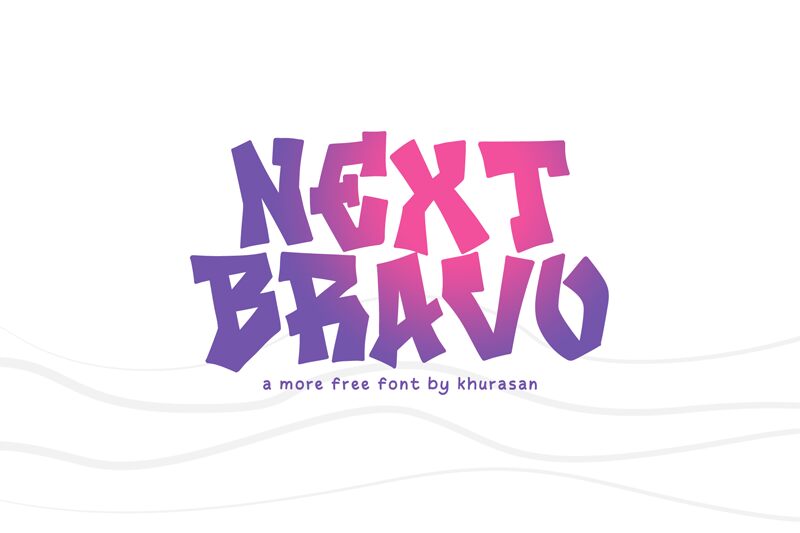
Next Bravo
Next Bravo, designed by Khurasan, is an extra-bold graffiti font that brings a modern and edgy touch to your designs.
Its bold strokes and intricate details make it ideal for creating eye-catching posters that demand attention. Let Next Bravo add a rebellious flair to your logos, giving them an urban and contemporary vibe. This font's versatility also makes it suitable for designing magazine layouts that exude creativity and energy. With its bold presence, Next Bravo can take pride of place on book covers, making them stand out on the shelves. Banners will come alive with this dynamic font, instantly grabbing the viewer's attention.